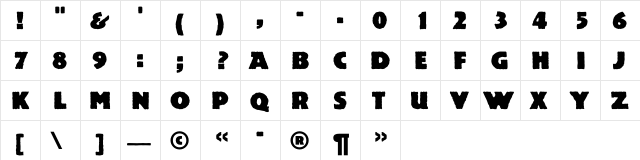
AcsiomaNextRoughC Regular Font Preview
AcsiomaNextRoughC Regular
Design Context for AcsiomaNextRoughC Typeface
AcsiomaNextRoughC embraces imperfection — its rough, textured character adds raw authenticity to designs that want to feel lived-in and unconventional.
Suited to punk-influenced zines, underground music branding, streetwear, and raw, anti-corporate design.
Pro Tip: Pair AcsiomaNextRoughC with intentionally raw or lo-fi design elements. Fighting against it with overly polished surroundings will undermine its personality.